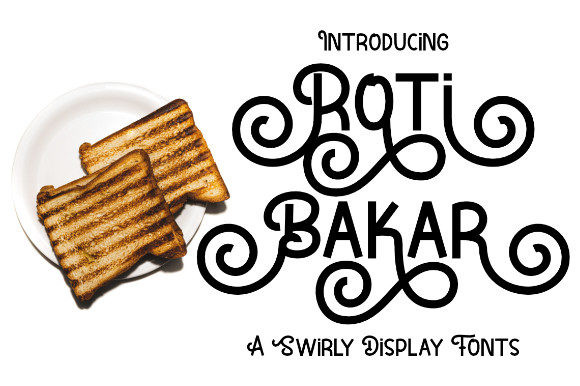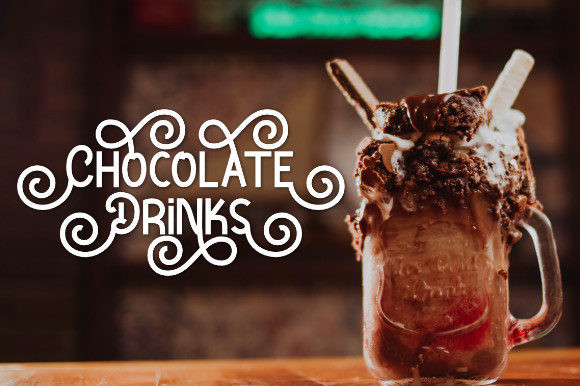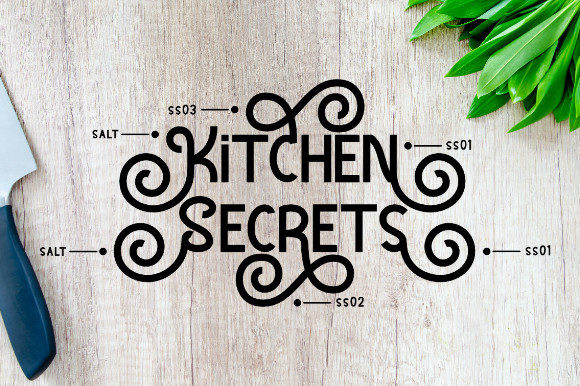
Roti Bakar Font
Roti Bakar is a whimsical, swirly and cool display font. Whatever the topic, this font will be a wonderful asset to your font library, as it has the potential to enhance any creation.